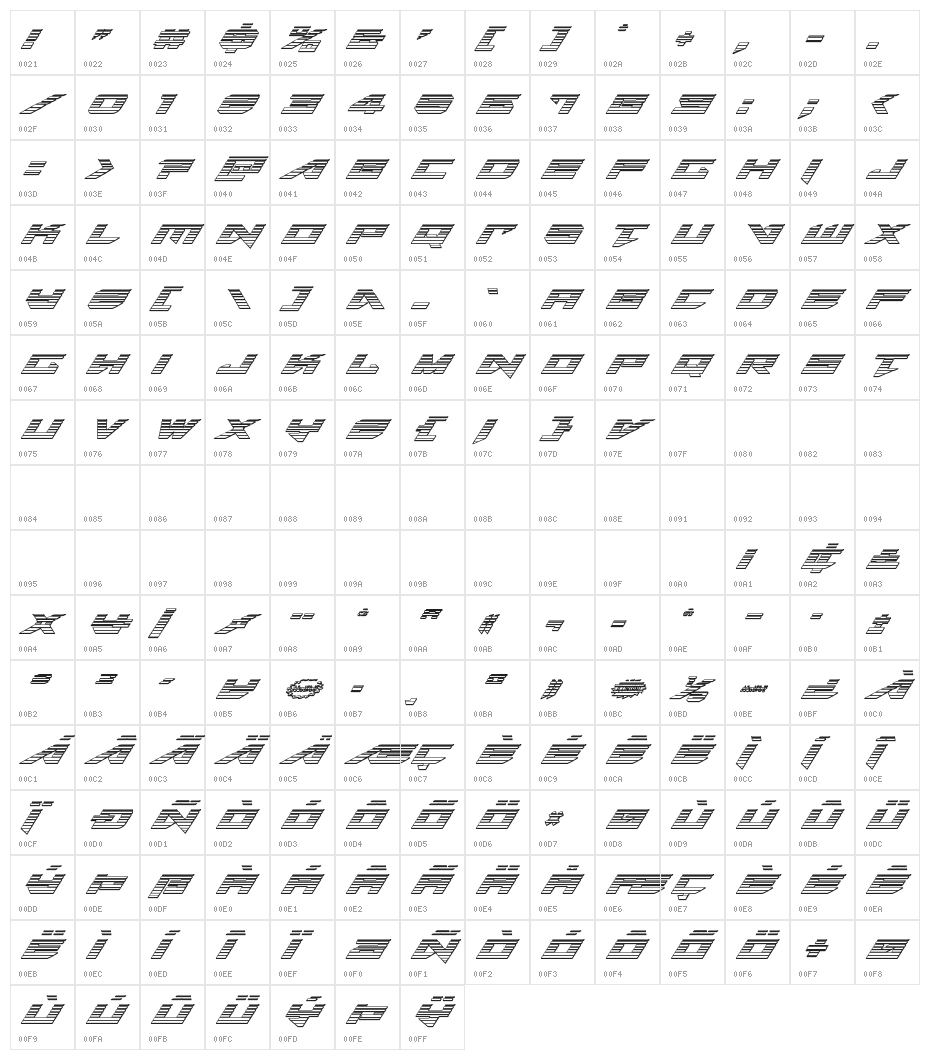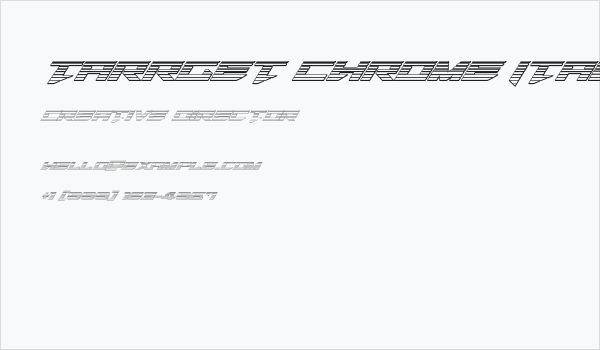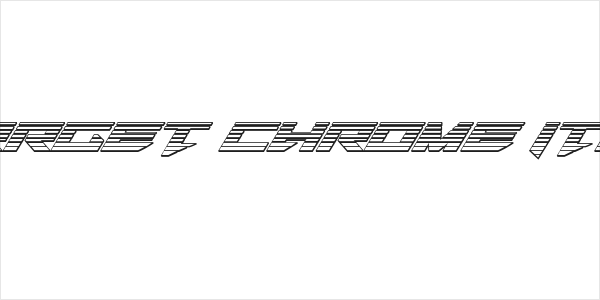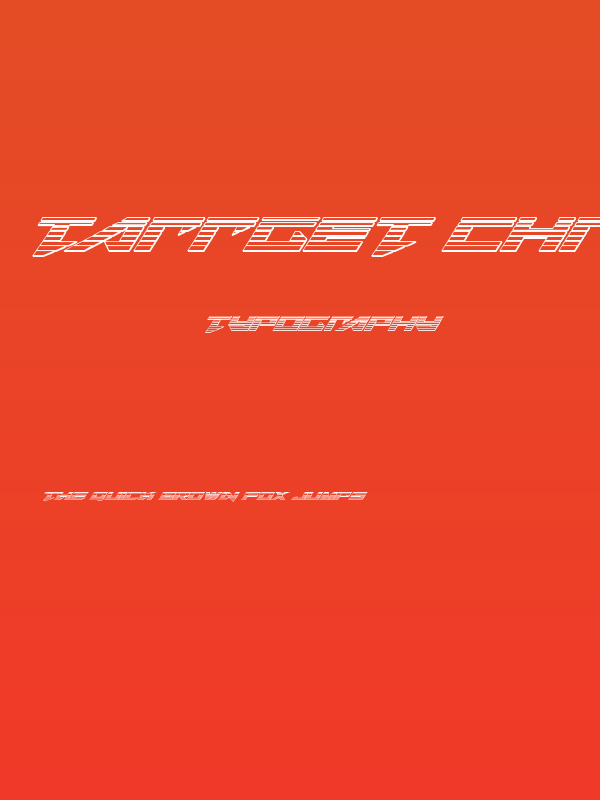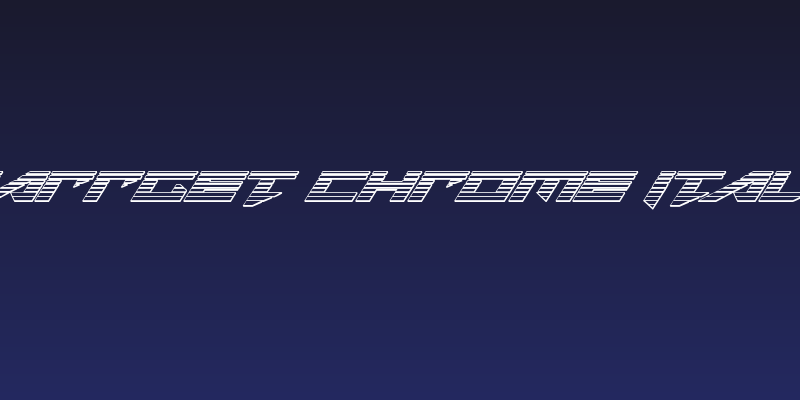
Tarrget Chrome Italic Font
Tarrget Chrome Italic Description
This font features a futuristic and dynamic design with a distinct italic slant, giving it a sense of motion and speed. The characters are composed of parallel lines, creating a striped effect that adds depth and texture. The uppercase and lowercase letters maintain a consistent style, with sharp angles and a geometric structure. The numerals and special characters follow the same design principles, ensuring uniformity across all glyphs. This font's unique aesthetic makes it stand out, suitable for projects that require a modern and edgy look.
Proposed ProjectsIdeal for sci-fi themed graphics, technology branding, video game titles, and modern posters.